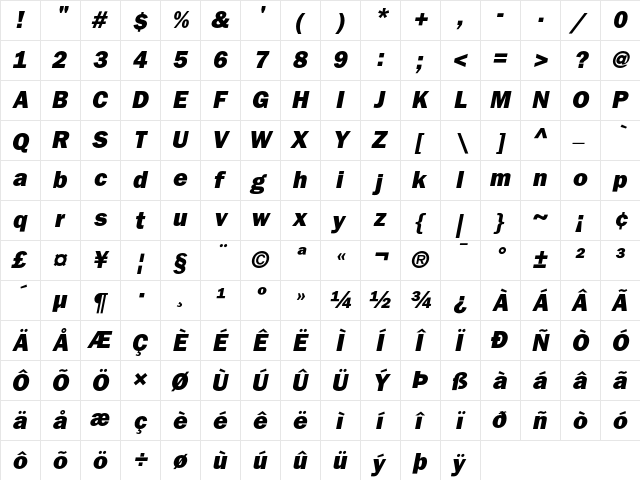
ITC Franklin Gothic Heavy Oblique Font Preview
ITC Franklin Gothic Heavy Oblique
ITC Franklin Gothic Heavy Oblique Font Details
Design Context for ITC Franklin Gothic Typeface
ITC Franklin Gothic takes a clean, functional approach — its unadorned letterforms prioritise legibility and work reliably across screen and print environments. The dynamic lean of this cut emphasises speed and emphasis in any layout.
Font Pairing: Works well alongside a characterful serif or display font that can carry the expressive load while ITC Franklin Gothic handles the functional copy.
Pro Tip: Use ITC Franklin Gothic for UI labels, navigation, and short-form body copy where clean legibility is the priority.